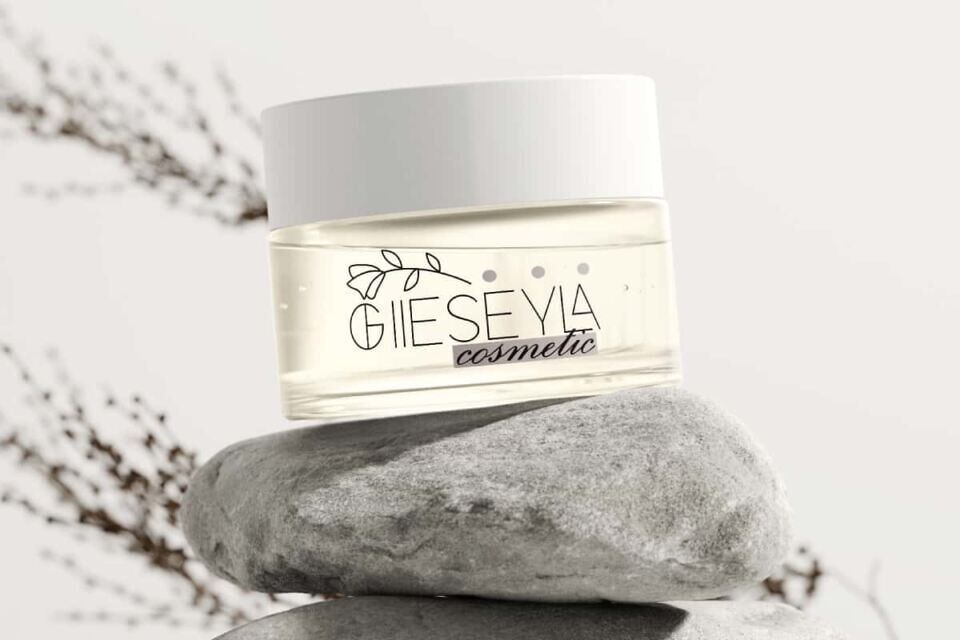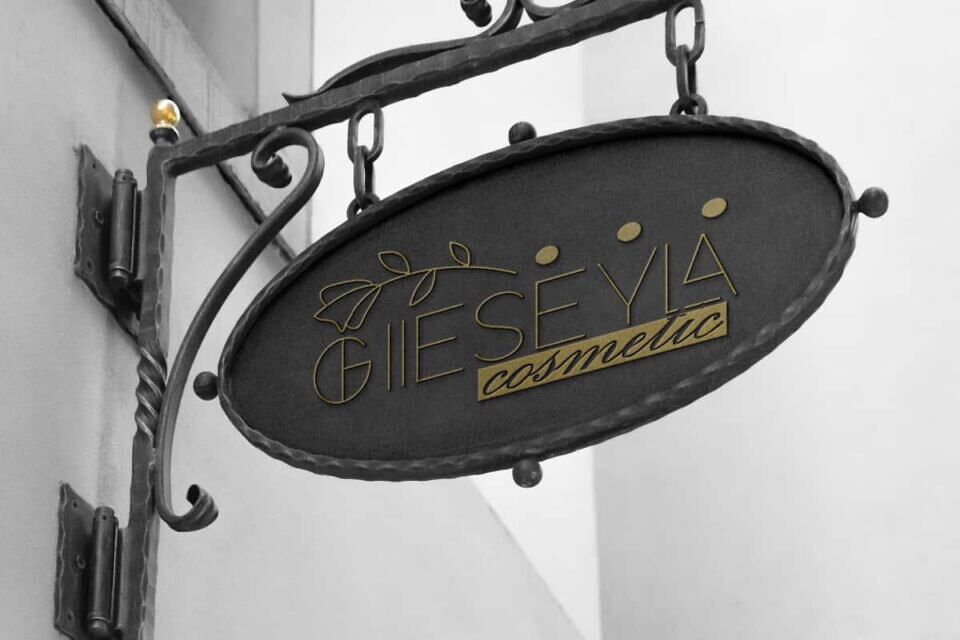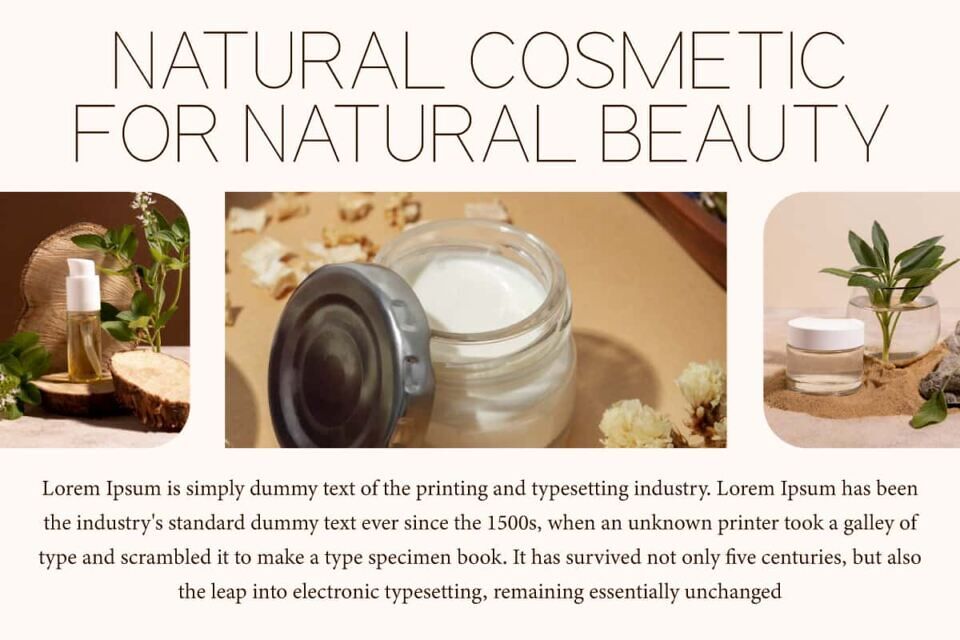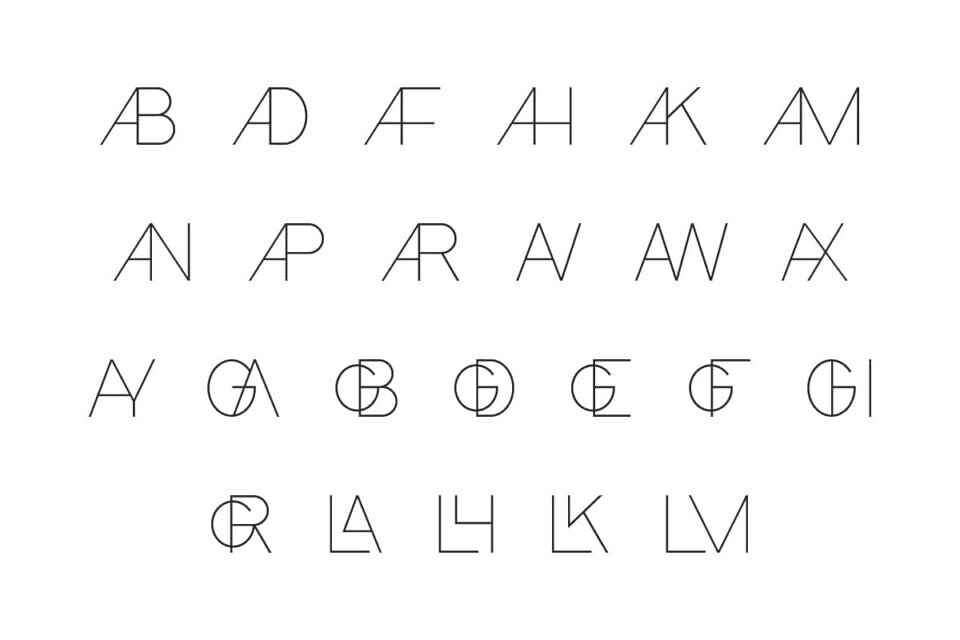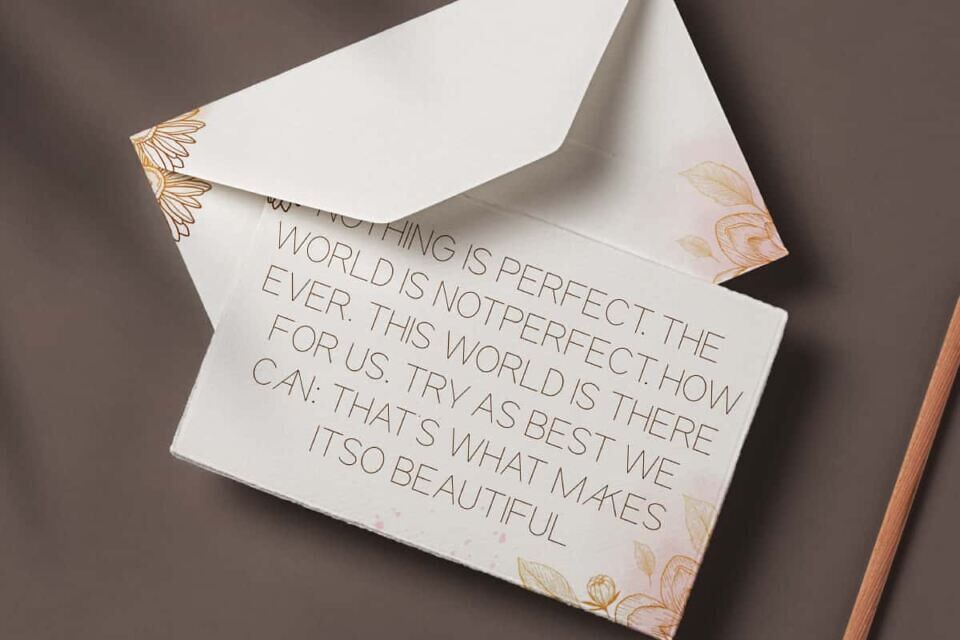
Aghney Milani Font
Aghney Milani Font is an elegant thin sans serif display font, can make your project style look different personally and more stylish. Perfect for advertising, blogs, covers, headers, invitation, label, logos, mockup, packaging, quotes, stationery, template, title, watermarks, website, etc.
Aghney Milani Font includes full set of Uppercase and Lowercase Basic Characters, Number, Punctuation, Symbol, and Ligature. Inspired by the monospaced style but made a little softer with rounded corners, perfect for accessories and gift, authors, beauty clinic, boutique, cafes, cosmetic, florist, graphic design, handicraft, home furniture, photography, restaurant, spa salon, and more.
Designed by: NihStudio